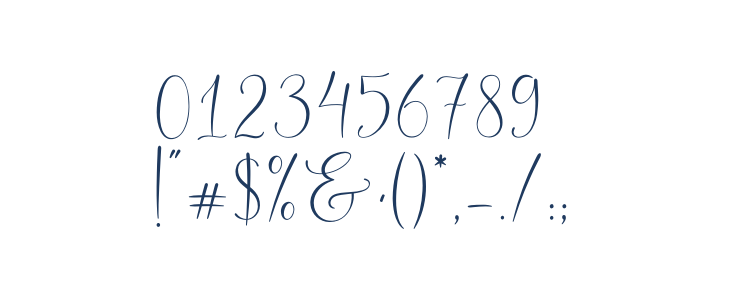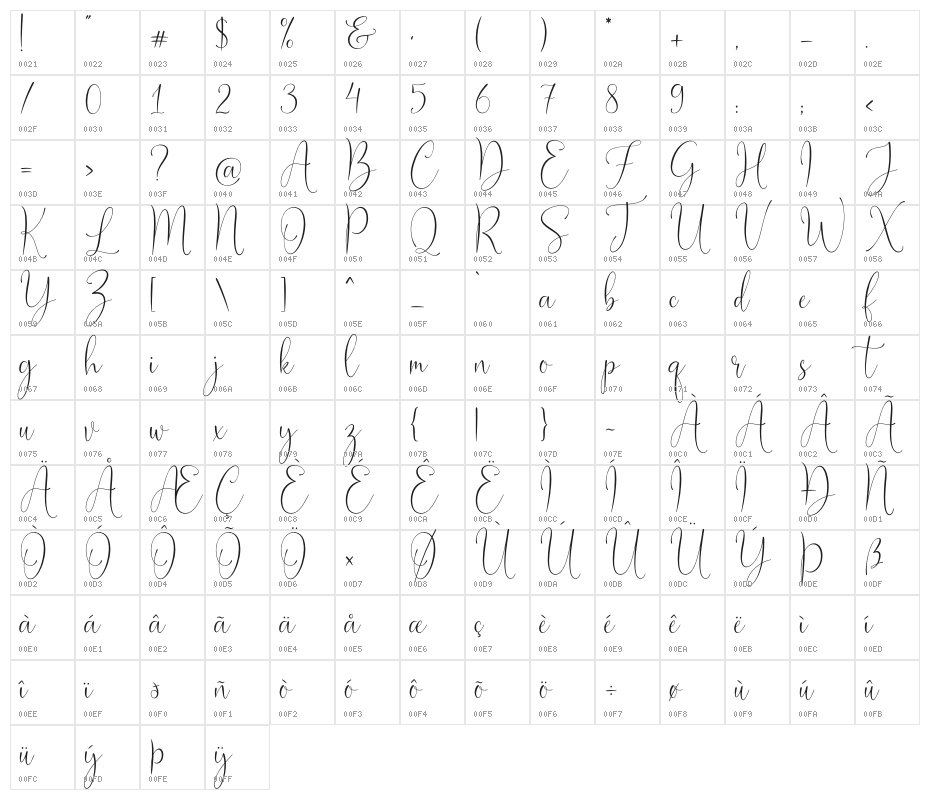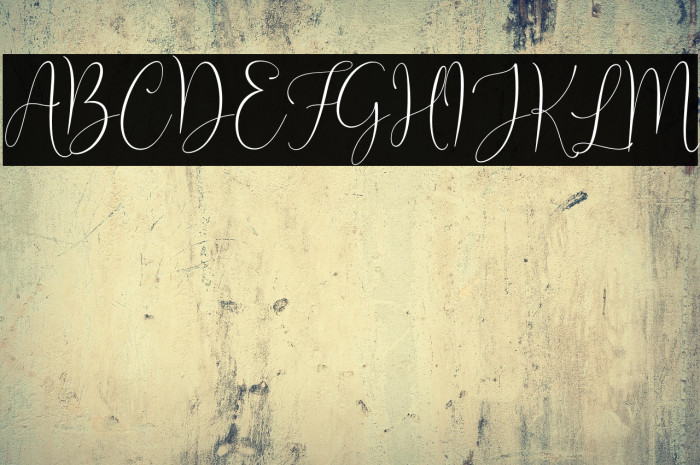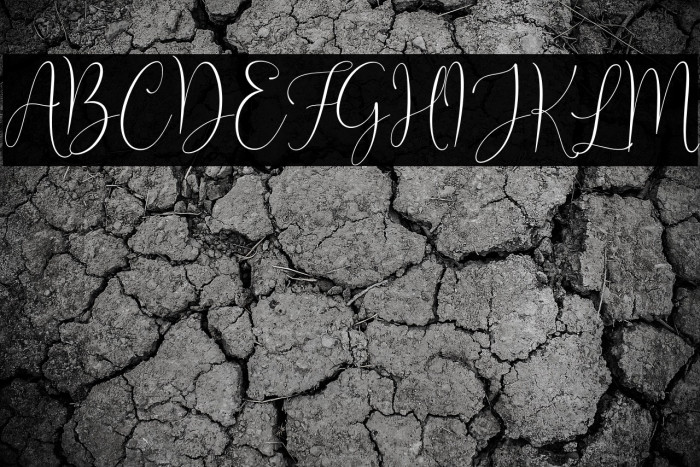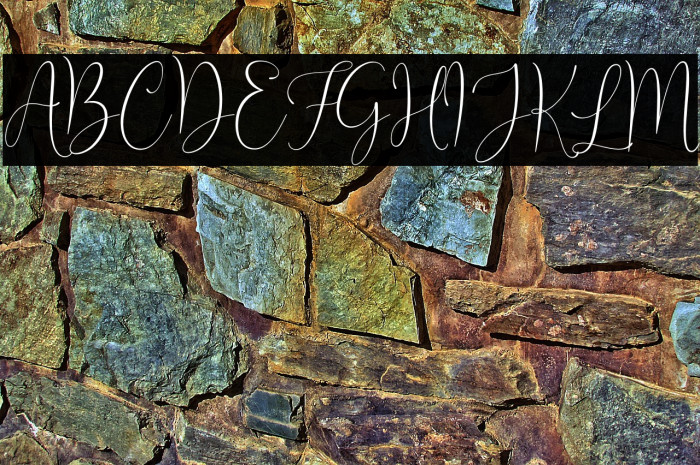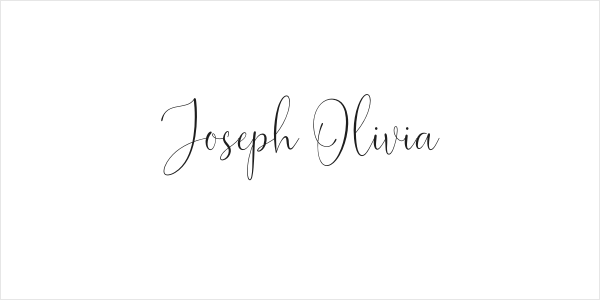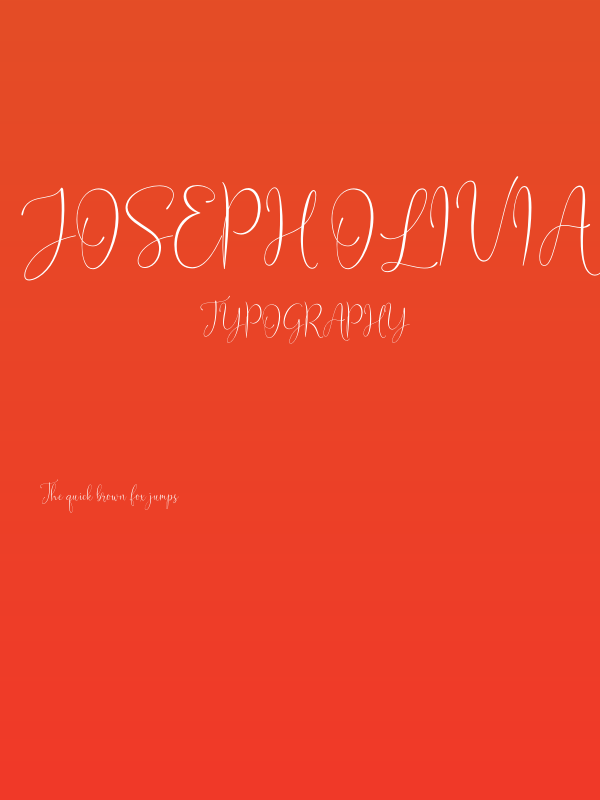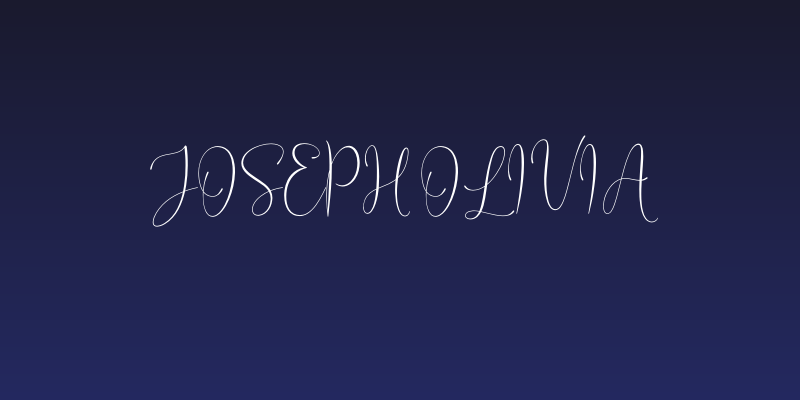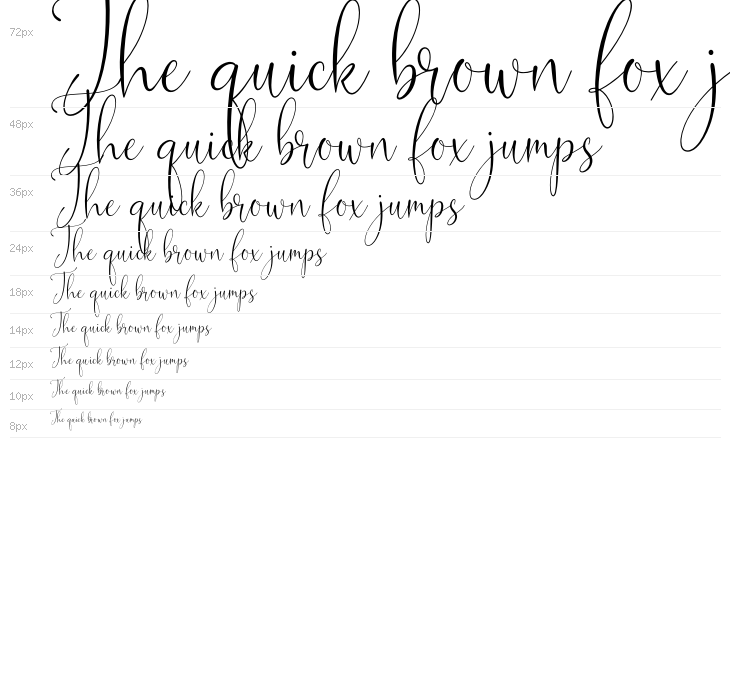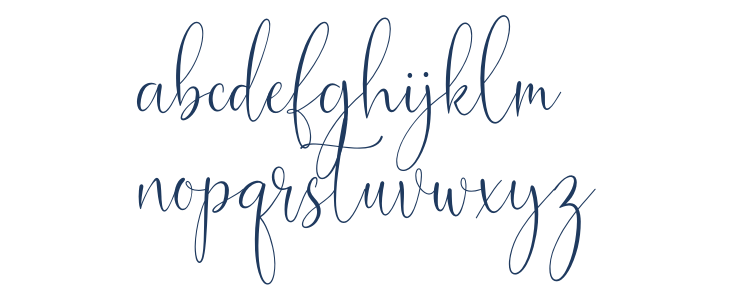
Joseph Olivia Font
Joseph Olivia Description
This elegant script font features flowing, interconnected letters that create a sense of movement and grace. The uppercase characters are tall and slender, with delicate loops and swirls that add a touch of sophistication. The lowercase letters maintain a consistent style, with smooth curves and a slight slant that enhances readability. Numbers and special characters are designed to match the overall aesthetic, ensuring a cohesive look across all text elements. The font's thin strokes and high contrast give it a refined appearance, making it suitable for formal and decorative applications.
Overall StyleElegant, Decorative
Use CaseLogos, Invitations, Decorative text
Proposed ProjectsIdeal for wedding invitations, elegant branding, greeting cards, and upscale packaging.